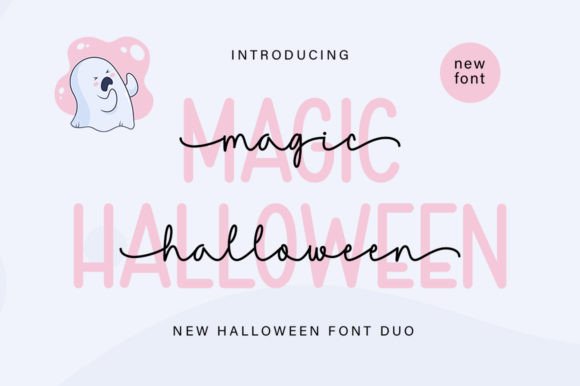
Introducing the enchanting Magic Halloween Duo Font, a captivating and versatile addition to any font collection. Crafted with utmost creativity by the talented DN Creative, this font family combines the elegance of a script font with the simplicity of a sans serif font, offering endless possibilities for your creative projects.
With its stylish and delicate design, Magic Halloween Duo is perfect for a wide range of applications. Whether you're designing greeting cards, creating eye-catching headlines, or simply looking to add a romantic touch to your artwork, this font is sure to impress. Its unique charm will instantly captivate your audience and leave a lasting impression.
One of the standout features of Magic Halloween Duo is its PUA encoding. This means that accessing all the glyphs and ligatures is a breeze, allowing you to effortlessly enhance your designs with beautiful flourishes and decorative elements. Unleash your imagination and let this font unleash its magic on your creations.
With its keyword-rich composition, Magic Halloween Duo is specifically designed for script writing in various word formats. From personalizing invitations to adding an elegant touch to your business presentations, this font will bring your words to life. Its exquisite curves and flowing lines will transform any text into a visual masterpiece.
But Magic Halloween Duo is more than just a font. It's a gateway to a world of emotions and experiences. Let its whimsical nature transport you to a magical realm, where creativity knows no bounds. Feel the excitement and anticipation as you embark on a journey of self-expression and artistic exploration.
As you explore the vast possibilities of Magic Halloween Duo, let your imagination run wild. Create bewitching logos, mesmerizing social media posts, and captivating advertisements that will leave your audience spellbound. With this font, the power to evoke emotions and capture attention is at your fingertips.
So why wait? Unlock the enchantment of Magic Halloween Duo and elevate your designs to new heights. Whether you're a seasoned designer or a passionate hobbyist, this font is the perfect tool to express your unique vision. Embrace the magic, embrace the beauty, and let your creations shine with the irresistible charm of Magic Halloween Duo.